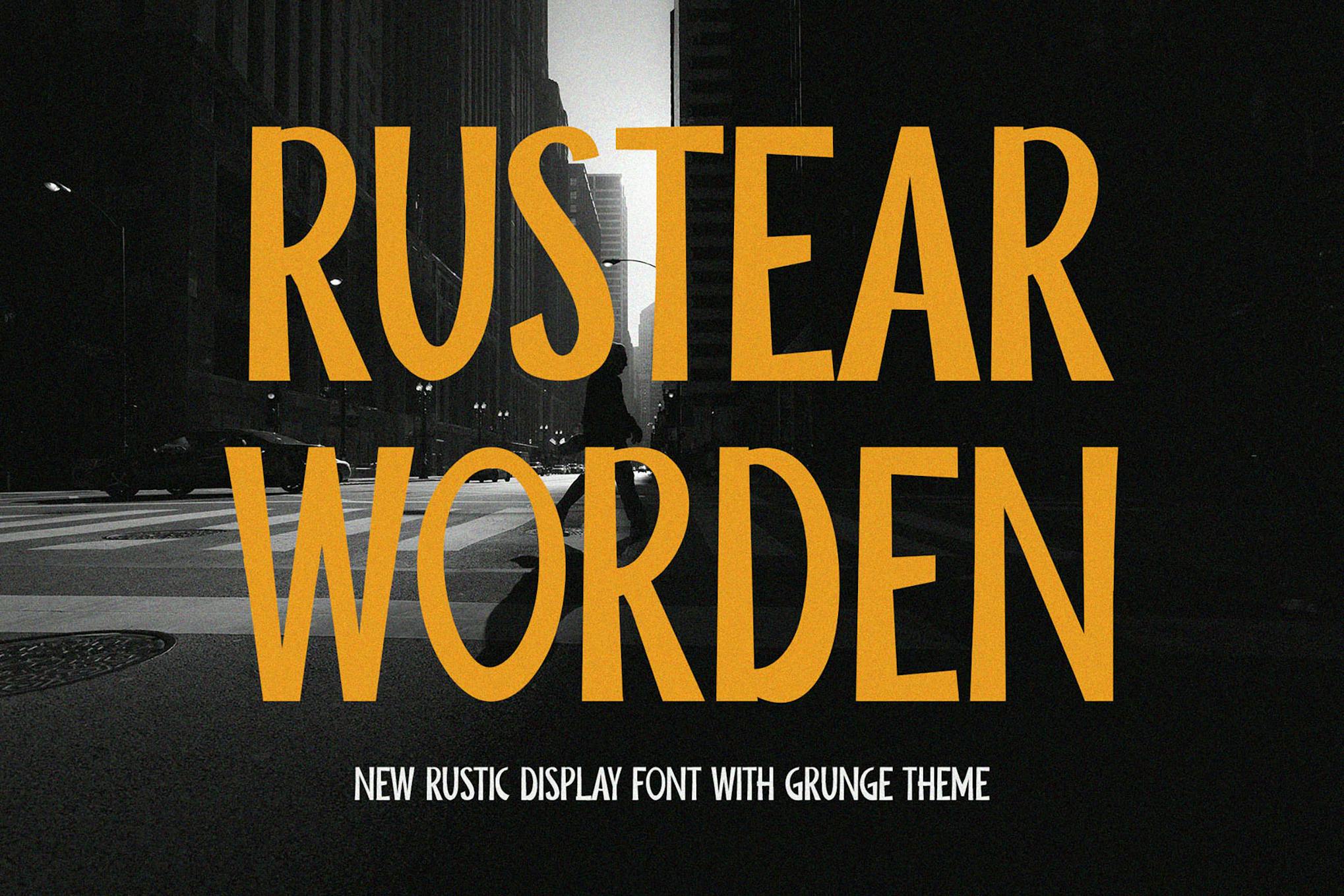
Rustear Worden - Retro Display Sans Font
Rustear Worden - Retro Display Sans Font Free Download offers a charming throwback to the past with its authentic, vintage style. For commercial use, you must purchase this font, but you can download it for free for testing purposes. This versatile typeface is perfect for a wide range of creative projects, including retro posters, vintage branding, t-shirt designs, editorial headers, and social media graphics. What makes this font so exciting is its hand-drawn character and subtle imperfections, which give it a genuine, handcrafted feel that is both nostalgic and personal. The Rustear Worden font family includes a range of weights and styles, such as Regular, Bold, and a complementary Rough version, providing a complete and flexible design solution.
This isn’t just a font; it’s a time capsule for your designs. The vintage aesthetic of Rustear Worden - Retro Display Sans is inspired by a blend of old-school print and hand-lettered signage. Its distinctive, slightly textured look ensures that your headlines and titles will be both memorable and highly engaging. Whether you’re a designer creating branding for a retro-themed cafe, a creative working on a poster for a vintage event, or a business looking for a font that conveys a sense of authenticity and charm, this typeface provides the perfect foundation. The hand-drawn aesthetic adds a layer of warmth and humanity that makes your work feel real and inviting.
The versatility of the Rustear Worden font family is one of its greatest strengths. You can use the clean regular weight for a smooth, classic feel, the bold weight for headlines that stand out with confidence, and the rough version for an authentic, weathered look. This combination allows for dynamic and layered designs that maintain a cohesive visual identity. Each character has been meticulously crafted to ensure that the distressed effect is both realistic and visually appealing, without compromising on readability. It's a font that works hard, delivering a look that is both stylish and full of character, ensuring your designs always make a memorable impression.